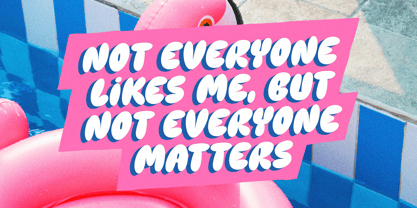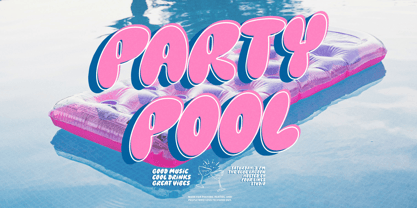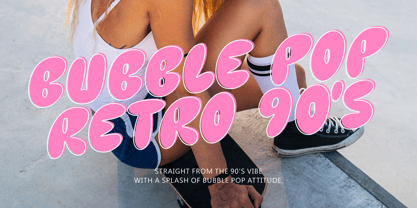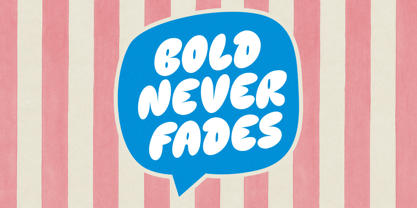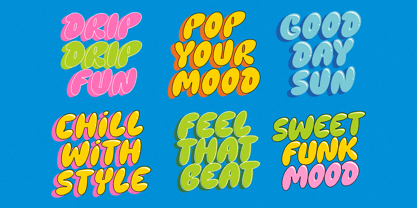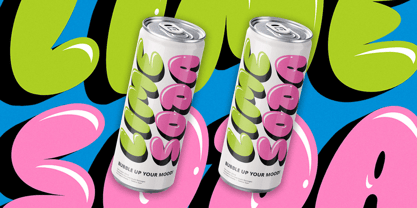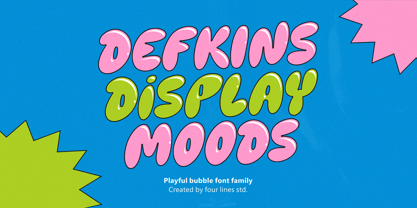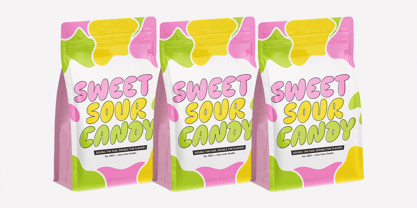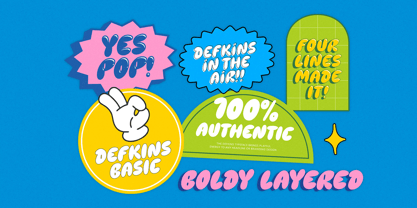
Defkins
von Four Lines Std
Die Schriftfamilie Defkins wurde von Zain Fahroni entworfen und von Four Lines Std veröffentlicht. Defkins enthält 4 Stile und Familienpaketoptionen.
Defkins is a playful bubble display font inspired by 90’s pop aesthetics — bold, bouncy, and full of character. With its soft curves and vibrant personality, Defkins brings joy and confidence to any design — from packaging and posters to branding, apparel, and social media graphics. This family includes 4 styles: Defkins Regular, Defkins Pop, Defkins Air, and Defkins Boldy.
Four Lines Studio is a graphic design studio founded in 2019 by Zain Fahroni in Bandung City, Indonesia. The studio's name is inspired by a friendship story that is close to the founder's heart. Our work is heavily influenced by this friendship, which has given birth to an identity that is associated with fun, playful, and groovy elements. A key area for the studio is typography, with a specific focus on developing fonts that emphasize minimalism and versatility.